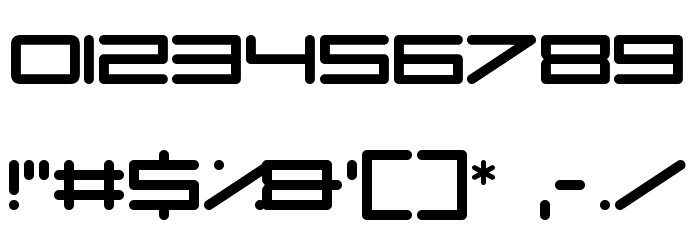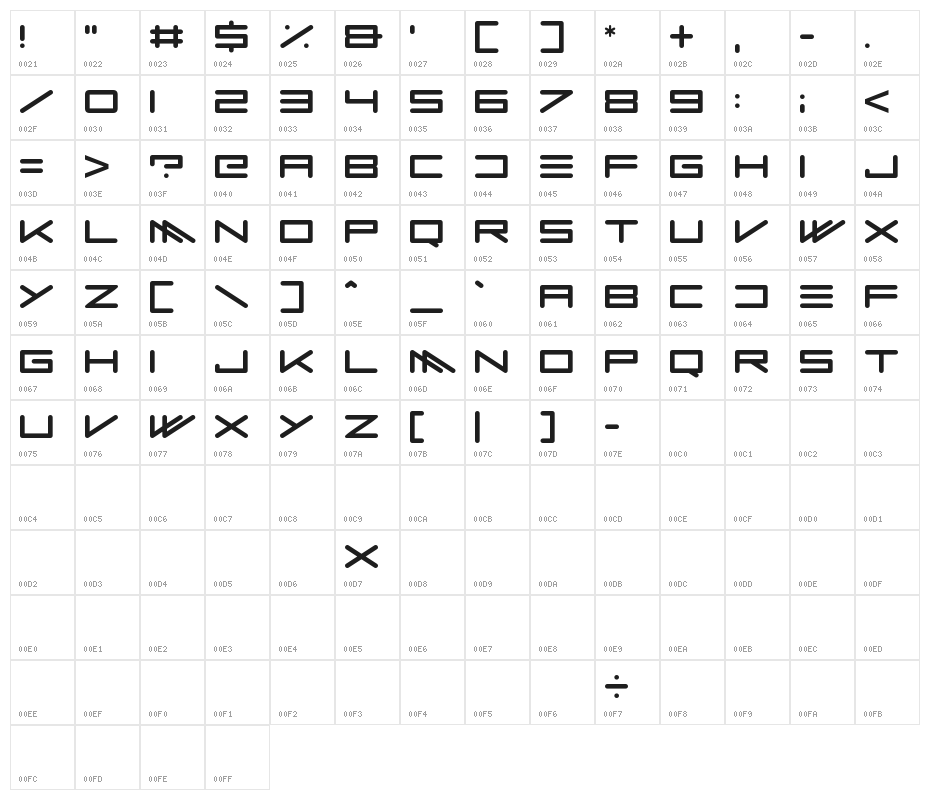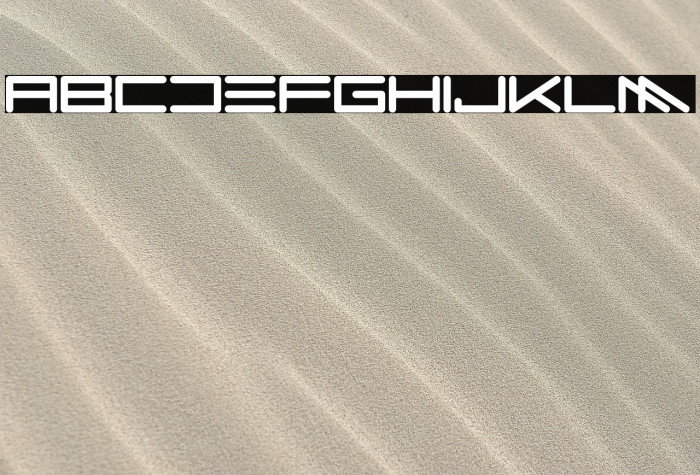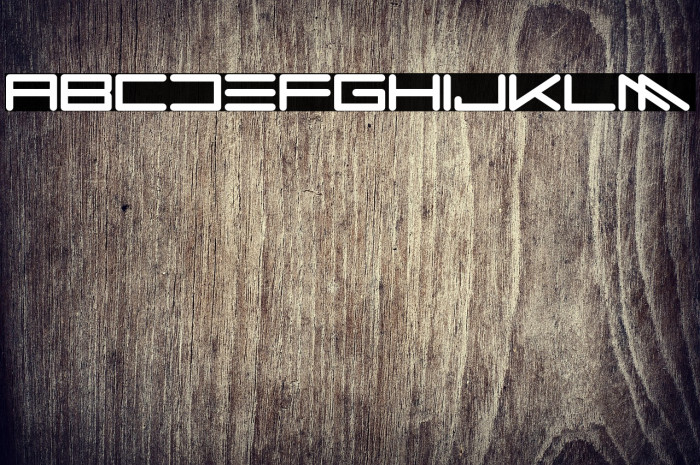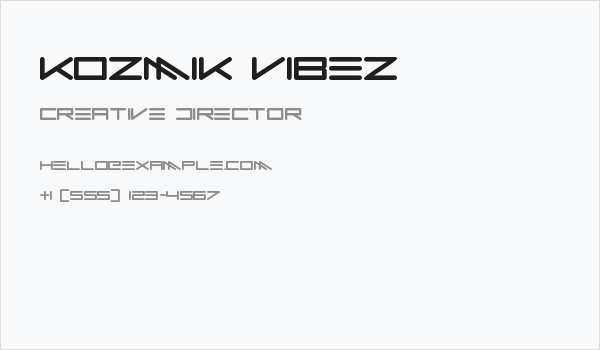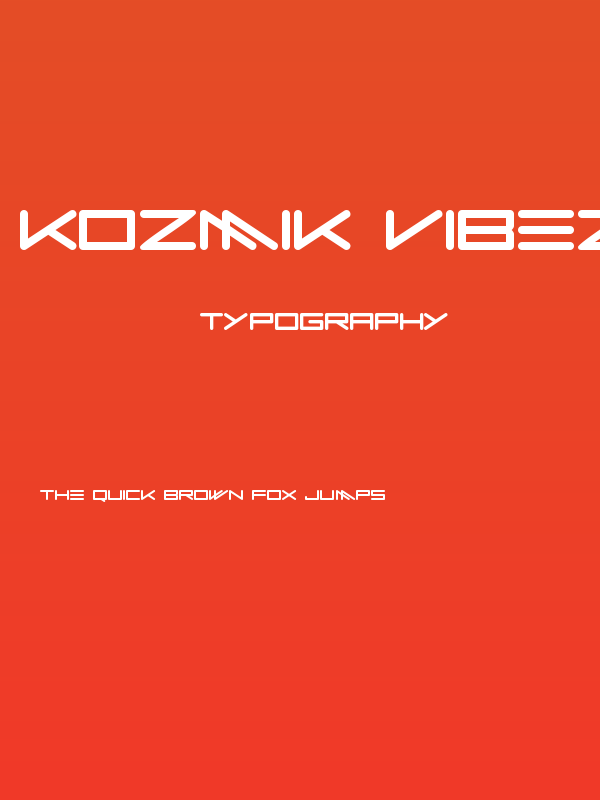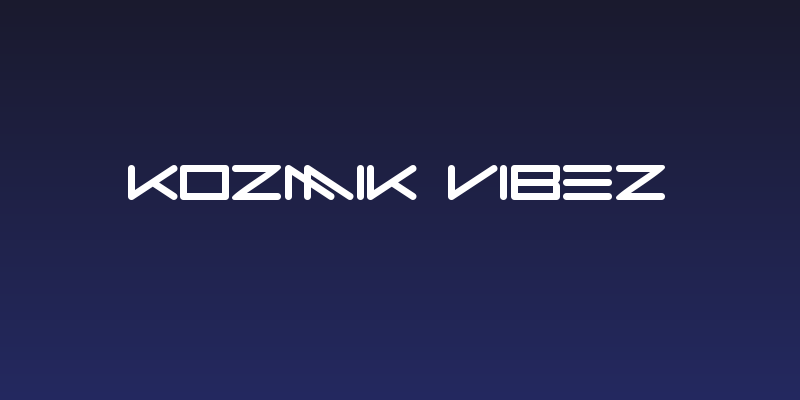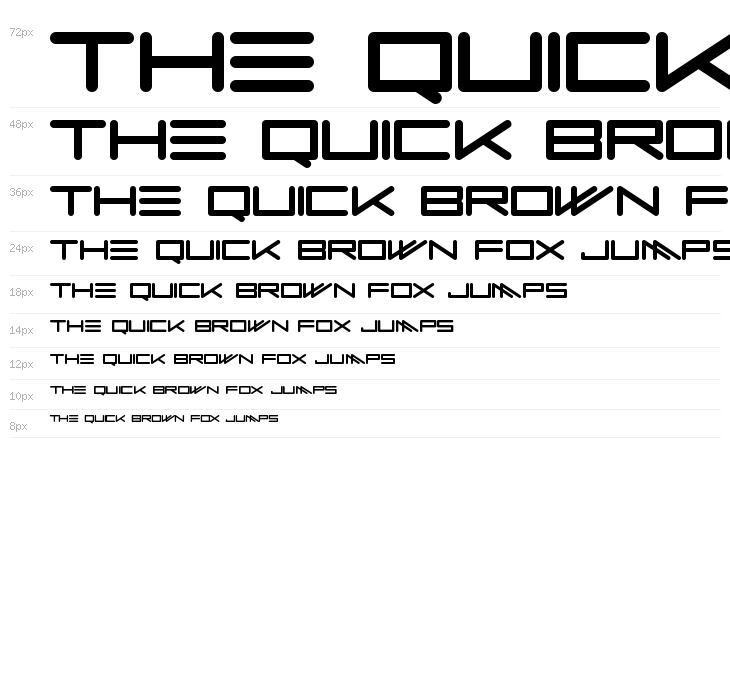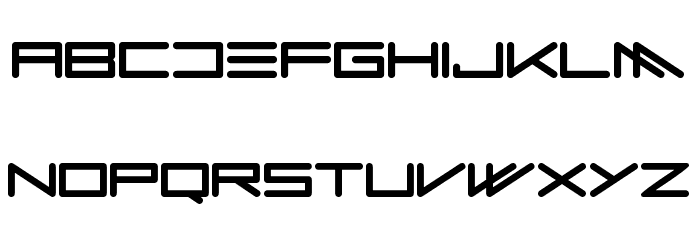
Kozmik Vibez Font
Kozmik Vibez Description
This font features a futuristic and geometric design, characterized by its bold and angular letterforms. The uppercase and lowercase letters share a consistent style, with sharp edges and a uniform stroke width that gives it a modern and technological appearance. The numerals and special characters maintain this aesthetic, ensuring a cohesive look across all glyphs. The font's unique style is reminiscent of digital or sci-fi themes, making it stand out with its distinctive and innovative design.
| Proposed Projects | Ideal for sci-fi themed projects, technology branding, video game titles, and futuristic posters. |